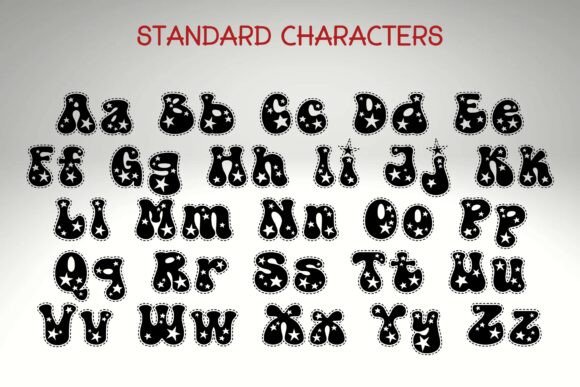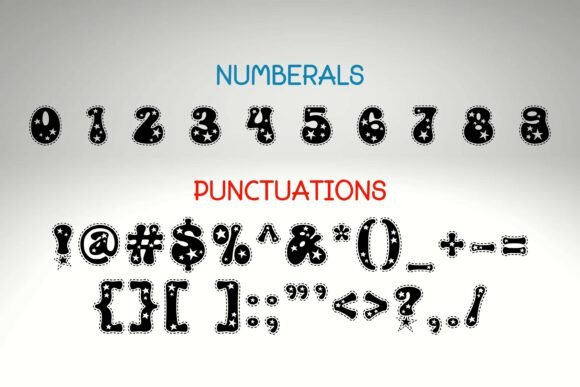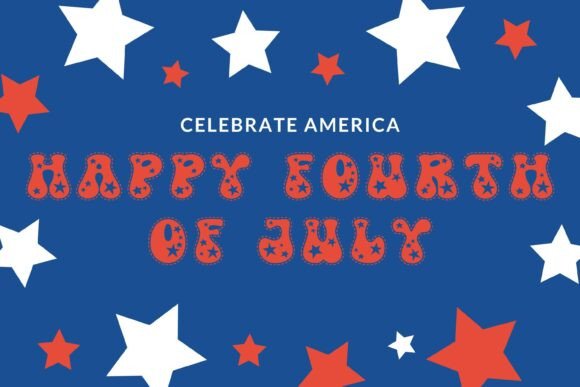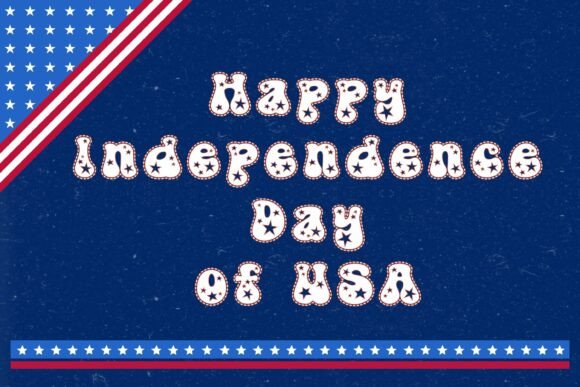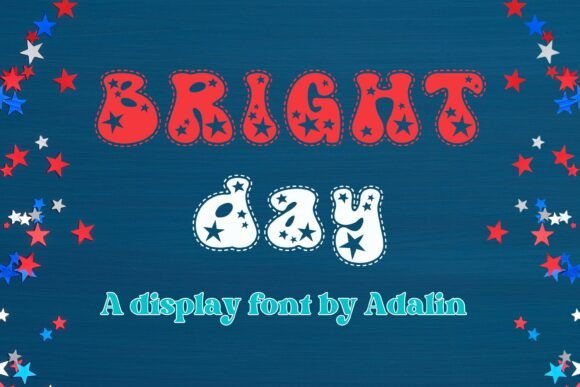
Unlock the Magic of Bright Day Font
Have you ever stared at a blank canvas, brainstorming ideas for your next creative project, only to be struck by a burst of inspiration? For many designers, this moment of epiphany is what drives their passion for crafting unique and captivating visuals. One tool that can help bring your vision to life is the enchanting Bright Day font – a harmonious blend of style and functionality that adds a touch of magic to any project.
Bright Day font is more than just a font; it’s a versatile companion for designers seeking to elevate their work. Whether you’re working on gift labels, book jackets, posters, or packaging, this font effortlessly adapts to your needs, infusing your creations with a refreshing charm. Its value lies in its ability to balance aesthetics with practicality, making it a valuable addition to any designer’s toolkit.
Bright Day Font Key Features
- Unique Characteristics: The font features a unique blend of modern and vintage elements, with clean lines, rounded edges, and a subtle distressed effect, making it perfect for creating eye-catching designs.
Bright Day Font Review
Overall, I think Bright Day Font is a solid choice for any project that needs a cheerful, modern feel. ✨ It’s perfect for titles, headings, and short texts where you want to add some personality without overwhelming the reader. The font’s clean lines and rounded edges give it a friendly, approachable vibe that works well in a variety of contexts.
- Works well in: Titles, headings, short texts, and body copy where a modern, playful feel is desired.
- Perfect for: Branding, marketing materials, websites, and social media platforms.
- Features: Clean lines, rounded edges, and a cheerful, approachable vibe.
That being said, there are some limitations to keep in mind. ⚠️ For example, the font may not be the best choice for long blocks of text, as it can start to feel cluttered and overwhelming. Additionally, the font’s rounded edges may not be suitable for projects that require a more formal or professional tone.
In terms of overall impression, I would give Bright Day Font 4 out of 5 stars. It’s a great choice for projects that need a modern, playful feel, but may not be the best fit for every project or context. With a bit of creative restraint and consideration for the project’s needs, however, Bright Day Font can be a fantastic addition to your design toolkit.